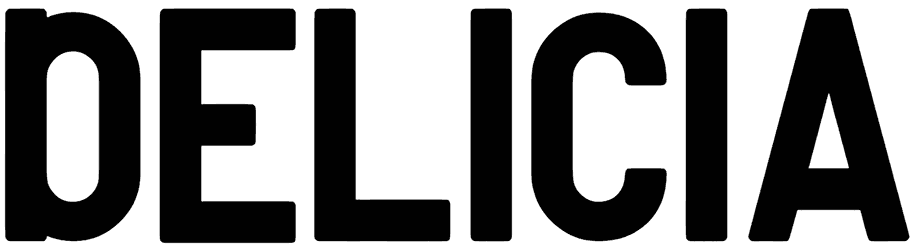
Delicia Font
Check out this sans serif font to make any design of your signs, book covers, product packaging, business cards, packaging, and more with its luxurious modern design. Despite the lack of lowercase letters, it can be advantageous in emphasizing any headings or titles.